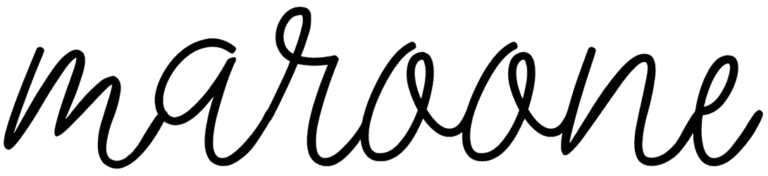
Lucky Shirt Font
Lucky Shirt is a fun and playful font that is perfect for adding a touch of whimsy to your designs. Despite the fact that it doesn’t include numerical letters, its unique and bold style makes it a great choice for creating eye-catching headlines and other attention-grabbing text.